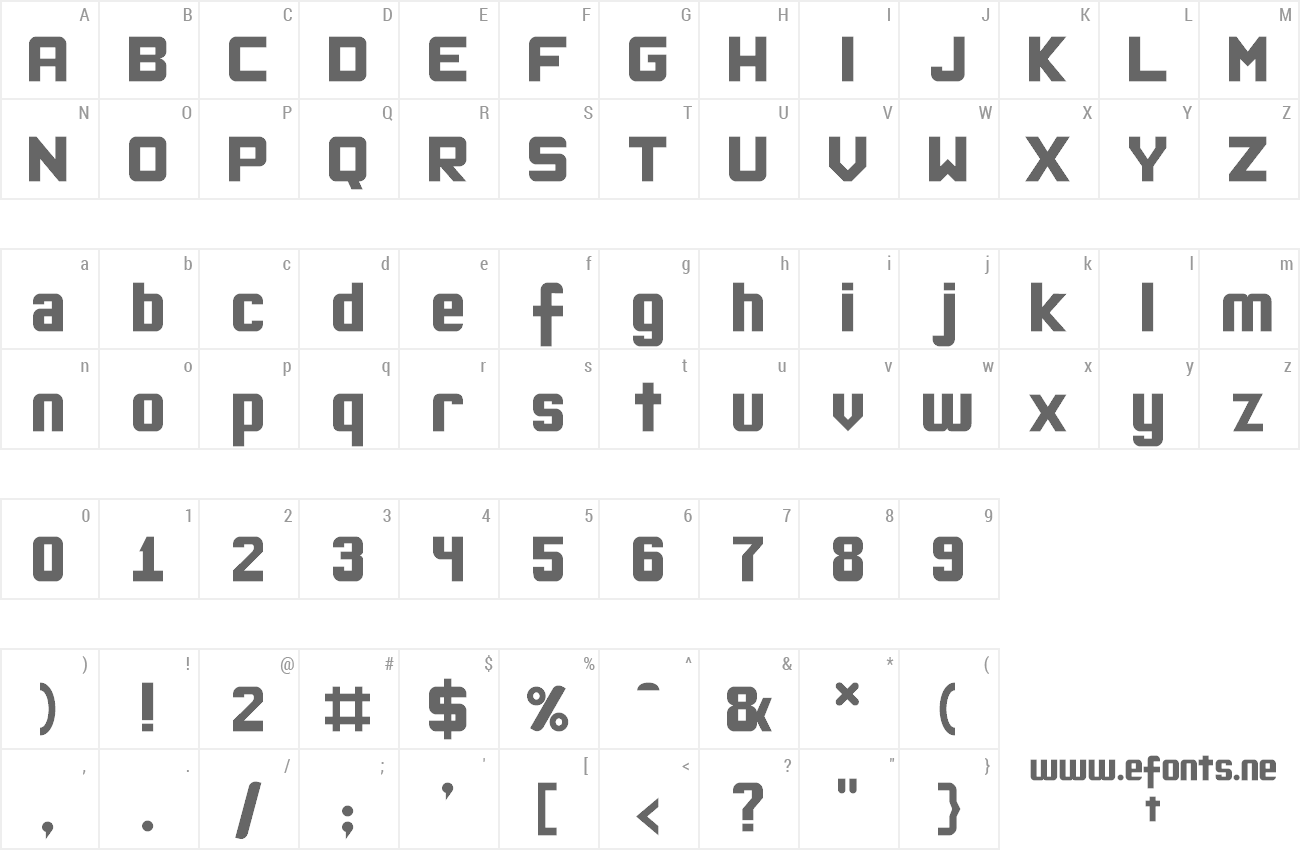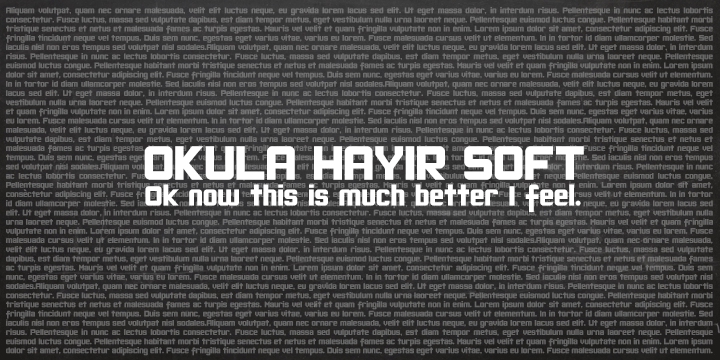
Preview and download Okula Hayir Soft Font. Created by Serdar A. in Techno Various styles with Free for personal use license.
My first work was the sturdy octagonal typeface "Okula Hayır" https://okulahayir.tumblr.com/ web font that I was inspired by bricks. This my third typeface. I modified and rounded this font and it becomes "Okula Hayır Soft" much better much softer much usable I think. So, if you want to use for Commerical issue please contact me: http://serdara.com/iletisim |